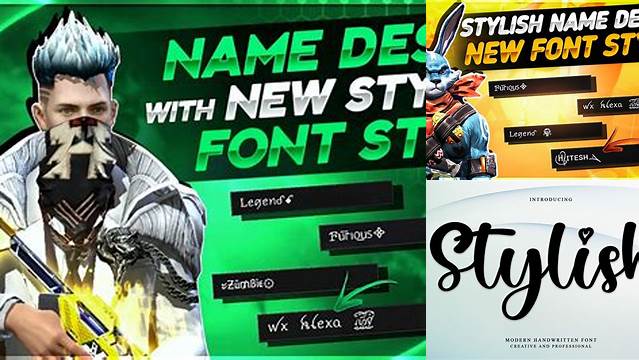
Free Fireboy's Stylish Font Guide
Hey gamers! Ever wanted to spice up your Free Fireboy profile with a killer font? You know, something that screams "I'm here to frag!" Well, you've come to the right place! This guide is all about the stylish fonts you can use in Free Fireboy to make your name, bio, and chat messages pop. We're talking fonts that are cool, unique, and guaranteed to make you stand out from the crowd. So, grab your favorite weapon, and let's dive into the world of stylish fonts for Free Fireboy! This guide will provide you with everything you need to know about finding, using, and even creating your own stylish fonts for Free Fireboy. We'll cover the best websites, apps, and tricks to get the perfect font for your gaming persona. Whether you're a seasoned veteran or a newbie just starting out, this is your ultimate resource for font-related fun! Get ready to level up your style game in Free Fireboy!
H2: Unleashing the Power of Font Styles in Free Fireboy
Alright, fellas, let's get down to brass tacks. Why bother with a fancy font in Free Fireboy? Well, it's all about expressing yourself, creating a unique identity, and, let's be honest, looking super cool. Think of your username as your personal brand in the game. It's the first thing people see, so you want it to be memorable. A stylish font can do just that. It grabs attention and tells people something about you before you even start playing. Are you the serious sniper with a sleek, modern font? Or maybe the fun-loving rusher with a playful, bubbly font? The choice is yours! The right font can convey your personality, your playstyle, and even your mood. Imagine seeing a username in a bold, edgy font – you immediately think "This guy means business!" On the other hand, a cute, whimsical font might signal that you're all about having fun and making friends. It’s a subtle but powerful way to communicate who you are within the Free Fireboy universe. It’s also about visual appeal. Let's face it, the default font can get a little boring. A stylish font adds a touch of flair and personality, making your profile and messages more visually interesting. It's like adding a custom skin to your favorite weapon – it makes the game more enjoyable and personal. It's all about making the game your own and showing off your unique style. A cool font shows you care about the details. It's the equivalent of having a custom controller or a pro-grade headset – it shows you're serious about the game and dedicated to creating the best possible experience. In essence, using a stylish font is about expressing yourself, standing out from the crowd, and making your Free Fireboy experience more fun and engaging. Get ready to transform your digital identity!
H3: Top Websites for Free Fireboy Fonts
Okay, guys, where do you find these magical fonts? Luckily, there's a ton of websites out there dedicated to providing awesome fonts for all your needs, including Free Fireboy. Here are a few of the top contenders, with a little breakdown to get you started. CoolSymbol.com is an awesome place to begin your font journey. It's super user-friendly, and you don't need to be a tech whiz to use it. Just type in your desired text, and the site will generate a whole bunch of font variations for you to choose from. Copy and paste directly into Free Fireboy - simple as that. No downloads, no installations, just pure font bliss. They have a great variety of styles, from bold and edgy to cute and quirky, ensuring you'll find something that fits your vibe perfectly. Next up is Lingojam.com. This site is similar to CoolSymbol.com, but it often offers even more font options. Lingojam tends to have a wider selection of unique and creative fonts, so it's a fantastic resource if you're looking for something a little different. Another awesome thing about Lingojam is that they usually have a live preview, which lets you see how your text will look instantly. Then there's FontGet.com, a site that offers a vast library of fonts. While you might need to download some fonts from this site, the selection is expansive. It might require a bit more technical knowledge, but the range of options is worth exploring, offering fonts suitable for nicknames, in-game chat, and even clan tags. You can even look for specific font styles. To make your font hunting easier, be sure to check the compatibility before using any of these fonts. Remember that not all fonts will be compatible with every platform or device. Also, it's always a good idea to test your chosen font in Free Fireboy before you commit to using it permanently. With these websites, you're all set to start experimenting and finding the perfect fonts to elevate your Free Fireboy experience! Have fun and keep it stylish!
H2: Font Generators: Your Secret Weapon for Unique Styles
Alright, let's talk about how to generate those unique fonts that'll make your Free Fireboy profile shine. Font generators are the unsung heroes of font customization. They’re like the secret sauce for creating unique text styles that grab attention. Instead of just picking from a pre-made list, these tools let you experiment and personalize your fonts, ensuring your profile is truly one-of-a-kind. Most font generators work on a simple principle. You type in your text, and the generator creates variations based on various styles. The process is usually super easy - copy the generated font and paste it into your Free Fireboy profile, in-game chat, or wherever you want to add some flair. The real magic lies in the variety these generators offer. You'll find options for bold fonts, italics, cursive fonts, and even special characters, and symbols. Some generators provide aesthetic fonts such as bubble letters, gothic styles, or even upside-down text. The sky is the limit! Another benefit of using font generators is that they are usually free and web-based. This means you can access them on any device with an internet connection, and you don't need to download or install any software. Plus, they're safe to use, unlike some dubious methods that could potentially compromise your account. When choosing a font generator, consider its versatility. Does it offer a wide array of styles? Can you easily copy and paste the generated text? Does it support the characters you need for your Free Fireboy name or messages? Check out the reputation of the generator before you dive in. Make sure other players have had positive experiences using it. The best way to ensure a good experience is by reading reviews or trying out a few different generators to see which one you like best. Unleash your creativity with these font generators, and give your Free Fireboy profile that extra edge! Get ready to stand out with unique and stylish fonts.
H3: Understanding the Different Font Types for Free Fireboy
So, you've decided to spice up your Free Fireboy profile, but where do you start with all these font options? Let’s break down some of the key font types to help you choose the perfect style to reflect your in-game personality. Serif fonts are characterized by the small strokes or